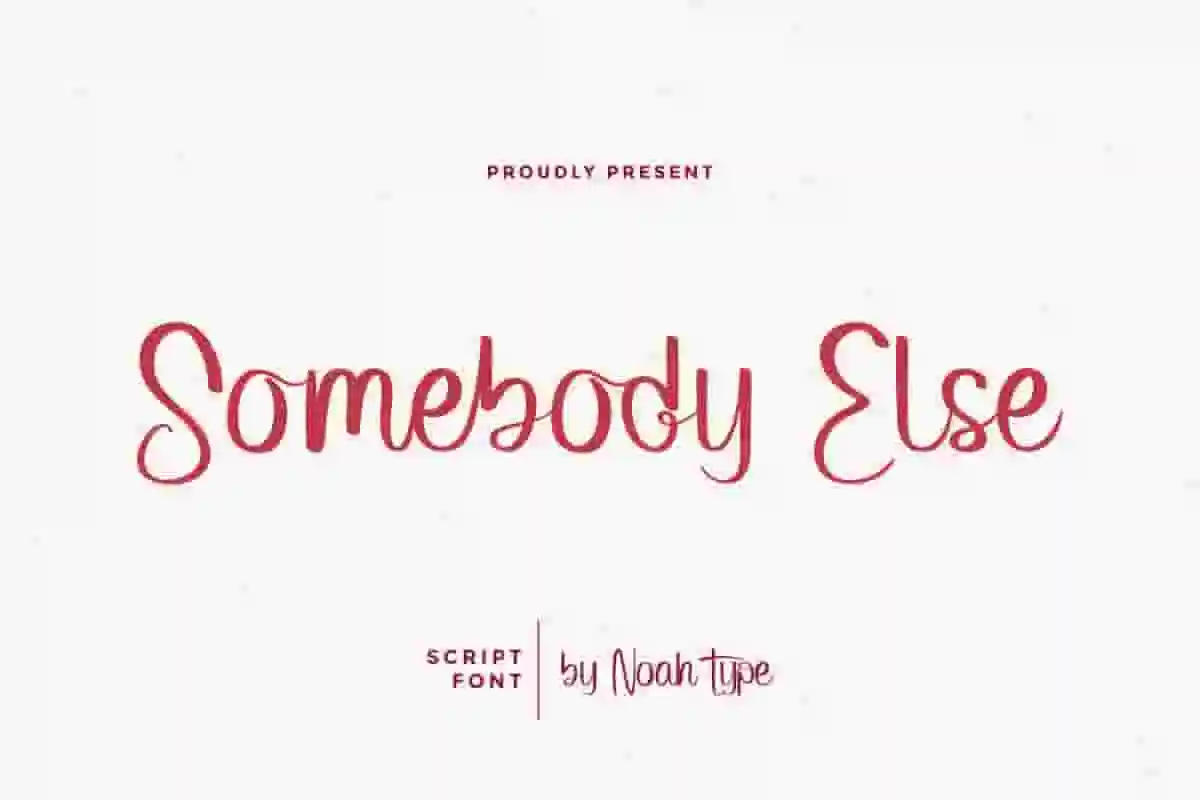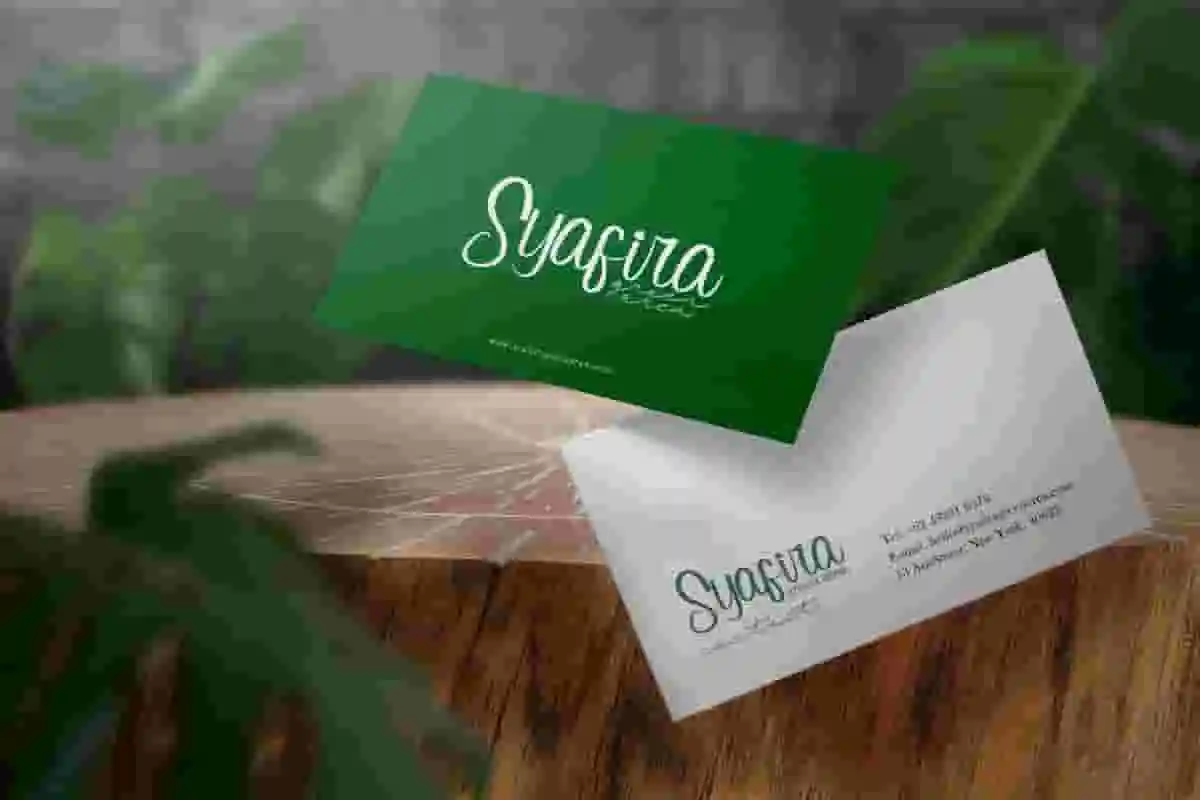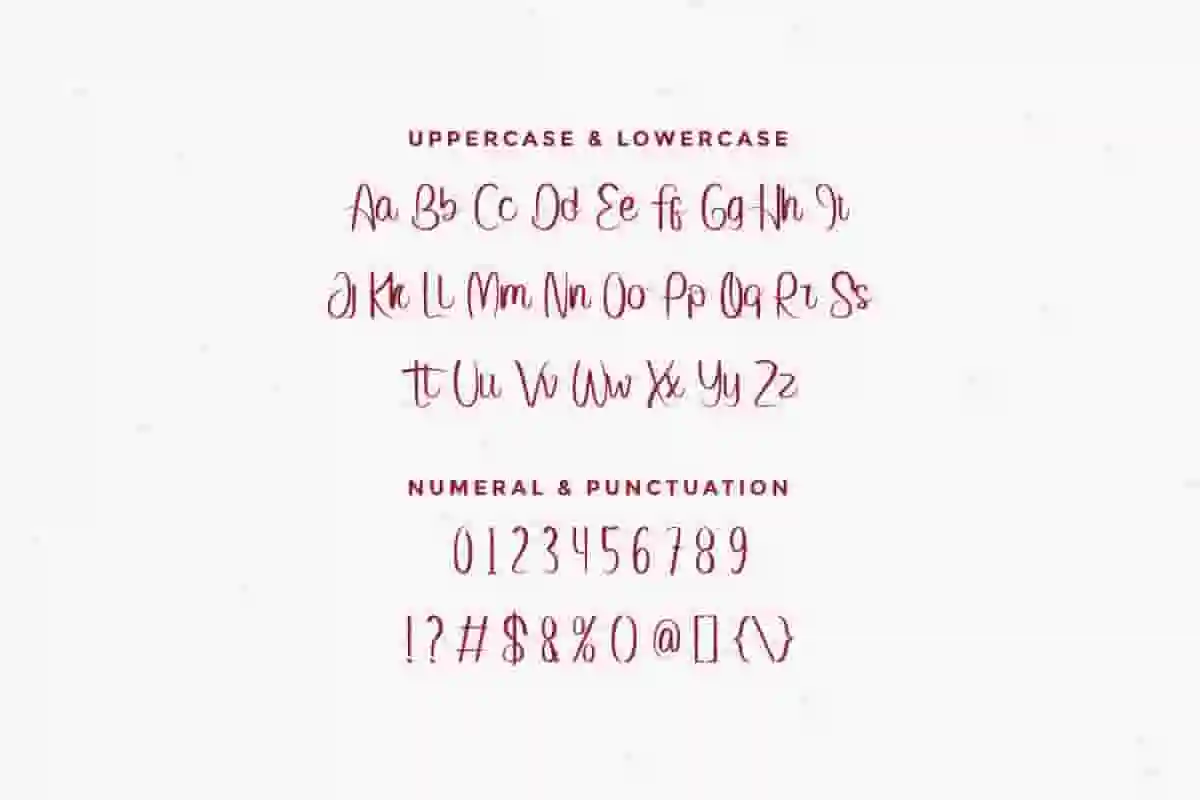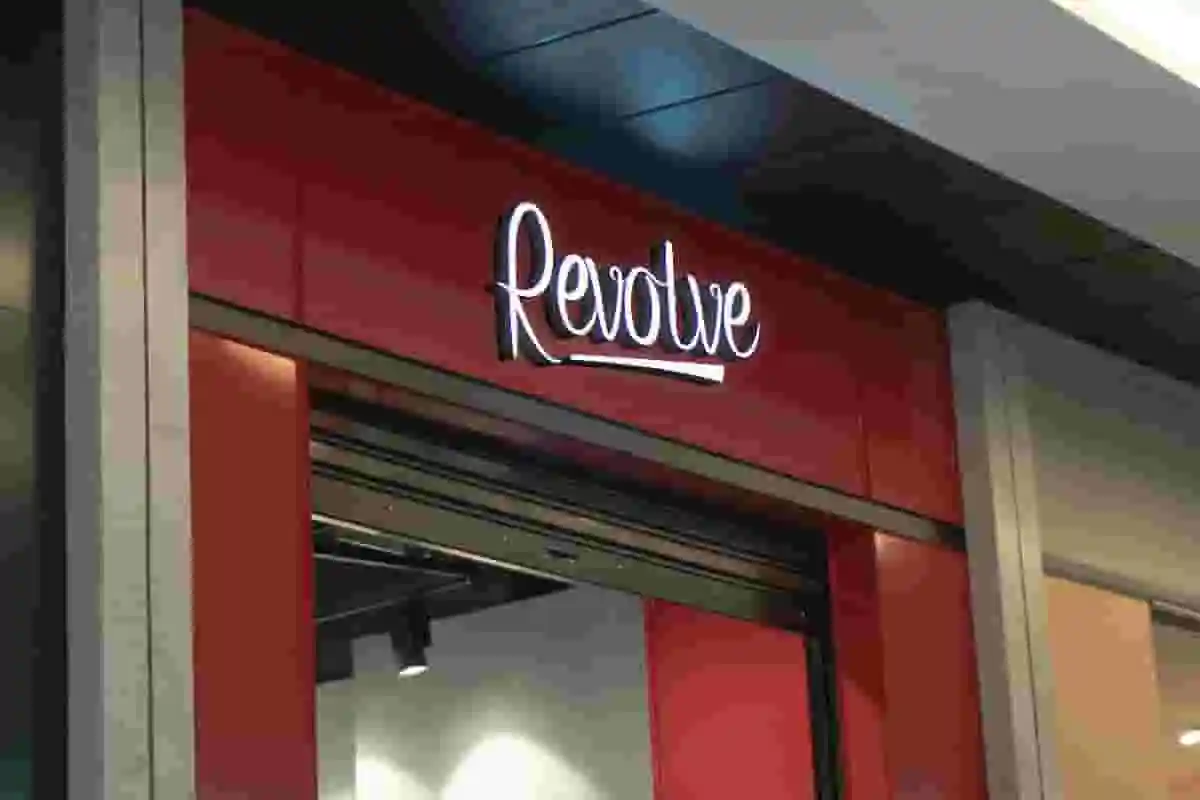
Somebody Else is a sophisticated handwriting font with stunning characters. This font is crafted carefully in every its single scratch, created to look as close to a natural handwritten script so that it can create the perfect combination on each glyph. This is a FREE Font For Commercial.
Somebody Else Handwriting Font includes full set of Uppercase and Lowercase Basic Characters, Numerals and Punctuation. Also it contains ligatures and alternates characters to perfectly make natural handwriting look that add more beautiful and aesthetic fonts to perfect your extraordinary project. Somebody Else Font will be awesome for professional, photography, wedding, engagement, branding, invitations, florist, hair stylish, makeup artist, event organizer, movie, music, festival, promotions, social media etc
Somebody Else Font will be great for photo logo, professional, branding, logotype, social media post, poster, invitation, watermark, lettering and many more